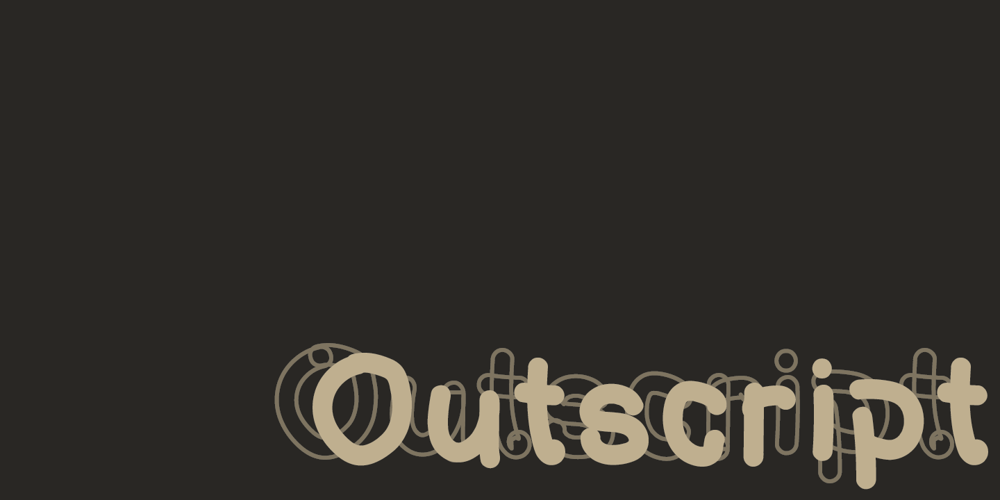
Outscript Font Family was designed by Öğüt Su Karagün and published by outdesign. Outscript contains 1 styles and family package options. Outscript is a “groovy script font” which has alternative to already ones. The most popular of this category has a disrepute for commercial uses. Outscript is a better way to use for amusing commercial purposes or just fun.